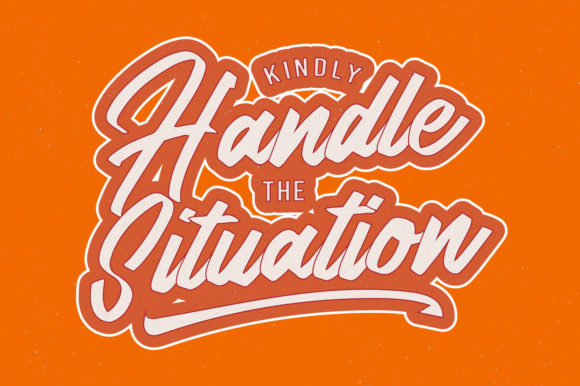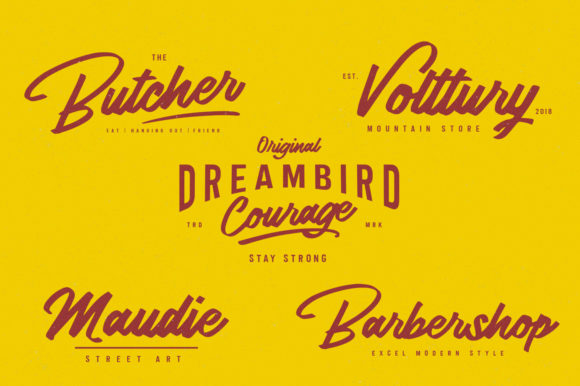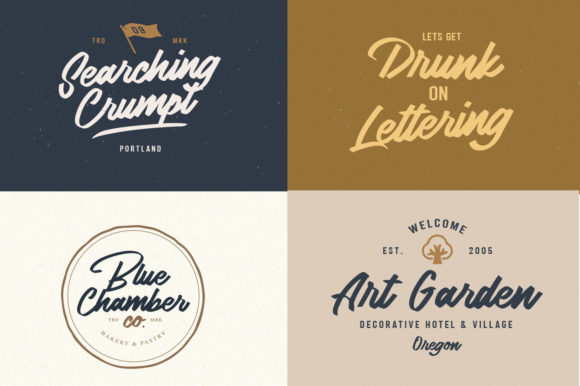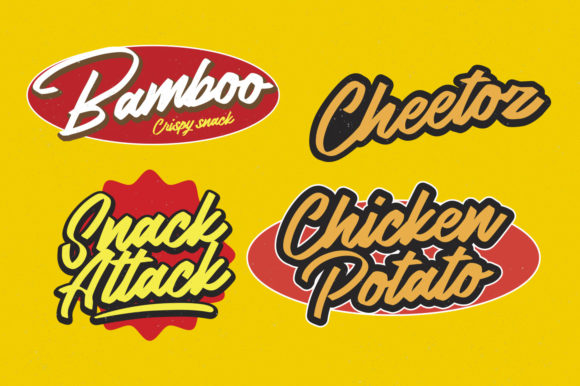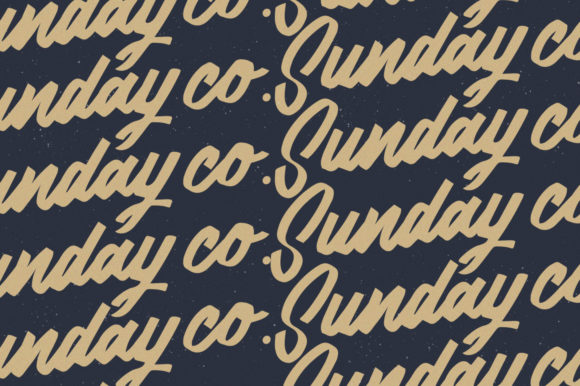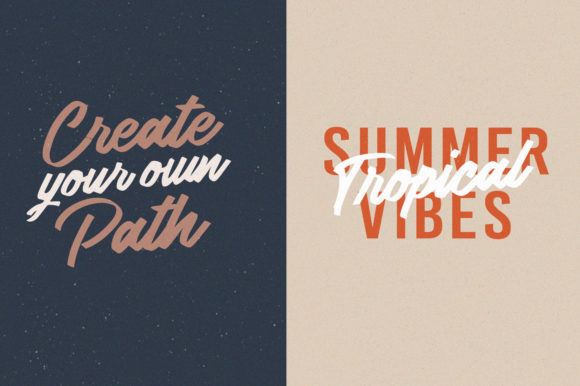
Introduction to Lydiani Duo Font
Have you ever been working on a creative project, pouring your heart and soul into it, and then, just as you’re about to hit publish, you realize that your design is missing that one final touch? For many designers, this is a common struggle. But what if you could add a touch of elegance and sophistication to your design with just a few clicks? Enter the Lydiani Duo Font, a stunning combination of script and sans serif fonts that’s sure to elevate your creative project to the next level.
As a valuable design resource, the Lydiani Duo Font offers a high-quality solution for designers looking to add a personal touch to their work. With its transparent background and beautiful typography, this font duo is perfect for creating visually appealing designs that communicate your message effectively.
Key Features of Lydiani Duo Font
- High-quality font with a unique, modern design, perfect for creative projects
- Comes in two distinct font styles: a bold, contrasting pair ideal for highlighting text and a subtle, elegant pair suitable for body text
- Features a transparent background, allowing for seamless integration with various backgrounds and designs
- Designed with a high resolution (300 DPI) for crisp and clear display, even at larger font sizes
Honest Review: Lydiani Duo Font
I recently stumbled upon the Lydiani Duo Font, and I must say it’s a great addition to any designer’s toolkit. As a design resource, it offers high quality and versatility, making it perfect for a wide range of creative projects.
One of the standout features of this font is its transparent background, which makes it incredibly easy to use in design applications. The font itself is clean and modern, with a unique aesthetic that sets it apart from other fonts in its class.
- Modern and clean aesthetic
As with any font, there are some limitations to consider. The Lydiani Duo Font is a bit limited in terms of the number of styles available, and some users may find the font to be a bit too minimalist for their tastes.
- Only a few styles available
- May be too minimalist for some users
Overall, I’m impressed with the Lydiani Duo Font and would definitely recommend it to fellow designers. Its high quality and transparent background make it a valuable resource for any creative project.
Getting the Most Out of Lydiani Duo Font
For optimal results, use Lydiani Duo Font in conjunction with a high-contrast background to maximize its visibility. Experiment with different font sizes and styles to add visual interest to your design.
Lydiani Duo Font is ideal for use in creative projects such as logos, graphics, and presentations. Its high quality and transparent background make it a versatile design resource for a wide range of applications.
Does the Lydiani Duo Font have a transparent background?
Yes, the Lydiani Duo Font features a transparent background, making it easy to use with various design elements and backgrounds. The font is designed to be versatile and can be used in a variety of creative projects, from digital designs to print materials. The transparent background also makes it easy to customize the font to fit your specific design needs.